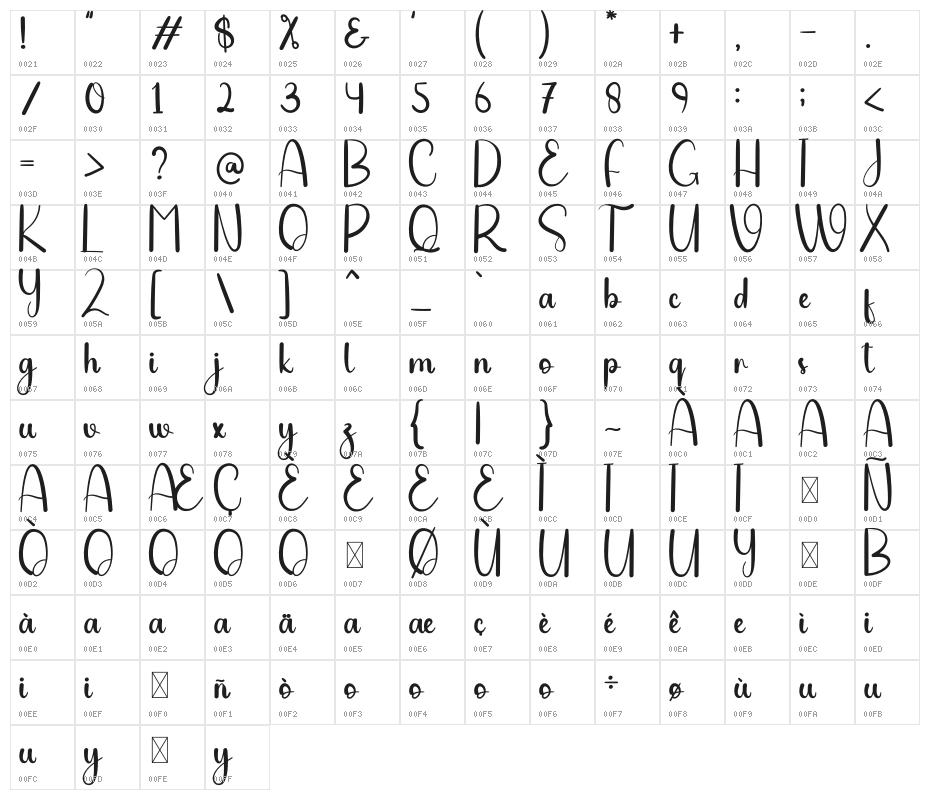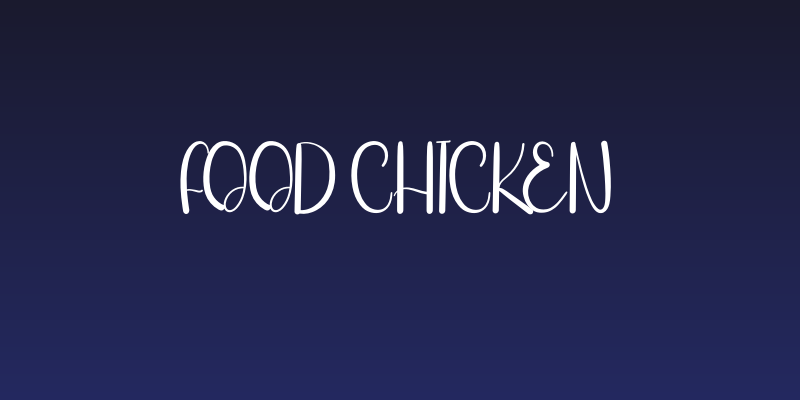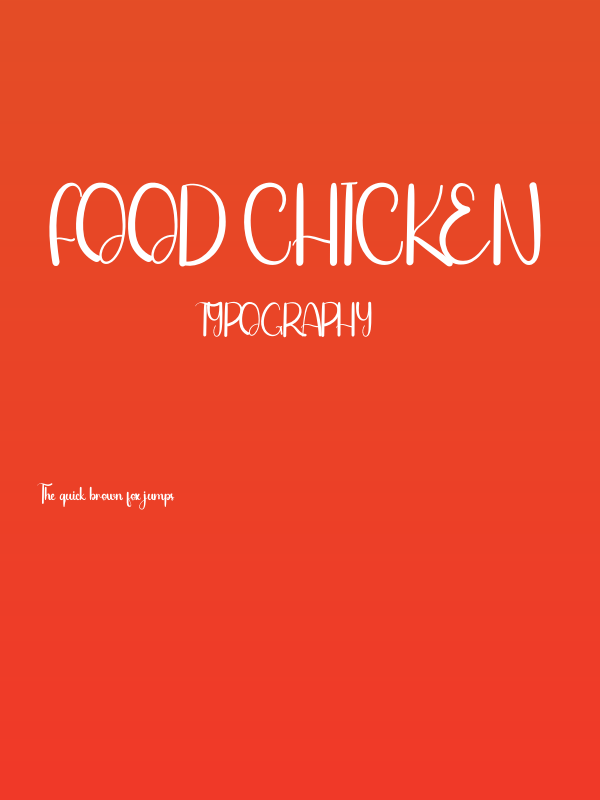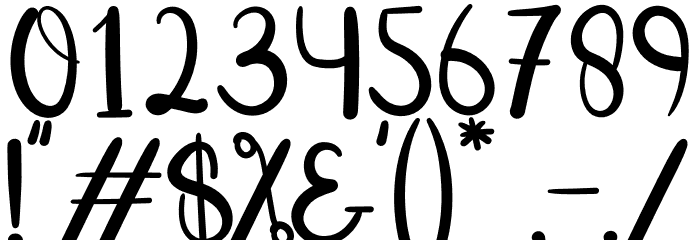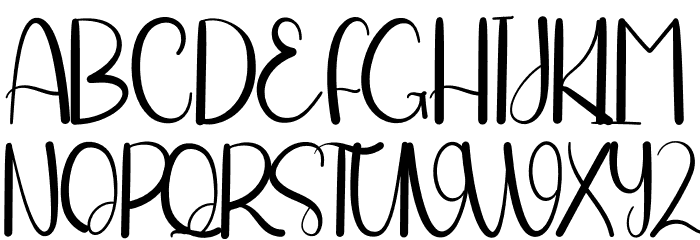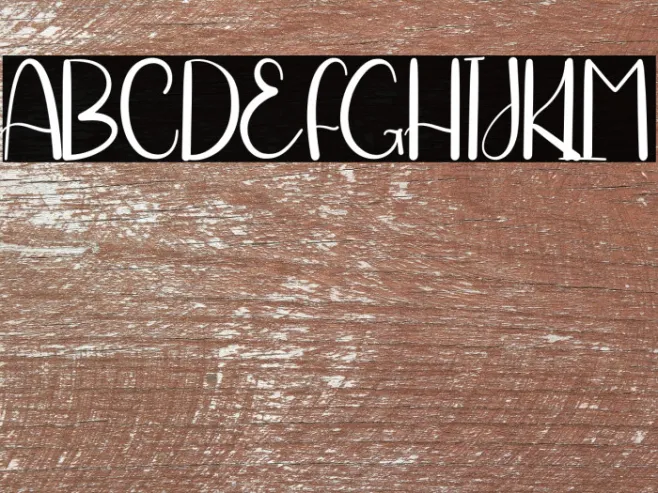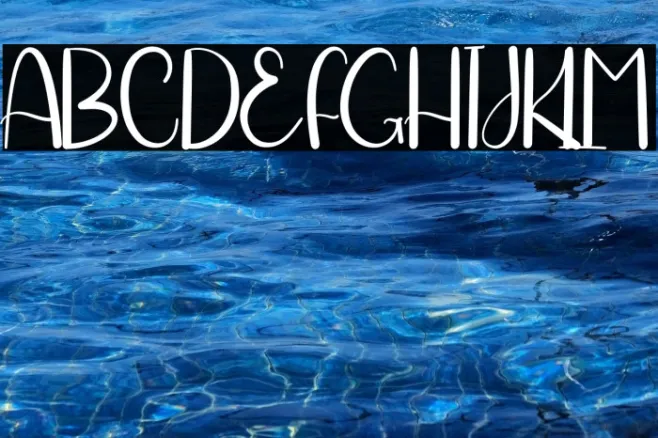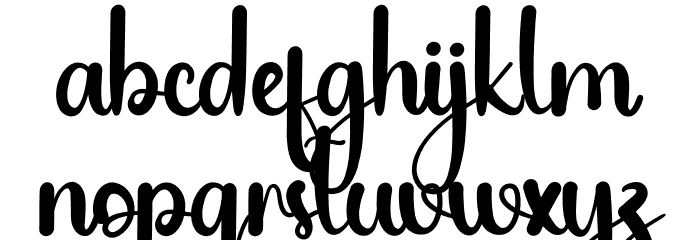
Food Chicken Font
Food Chicken Description
This font features a playful and whimsical style, characterized by its flowing, cursive-like uppercase letters and bold, rounded lowercase letters. The uppercase letters have a tall, elegant appearance with varying stroke widths, adding a dynamic and lively feel. The lowercase letters are more compact and bold, providing a nice contrast to the airy uppercase. Numbers and special characters maintain the playful aesthetic, with some characters incorporating loops and swirls. The overall design is both decorative and approachable, making it suitable for creative and informal applications.
FOOD-CHICKEN UPPERCASE
FOOD-CHICKEN LOWERCASE
FOOD-CHICKEN OTHER CHARS